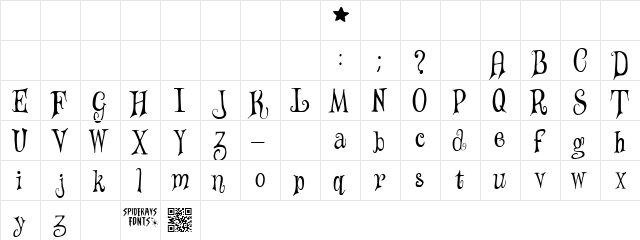
Wizards Magic Regular
Design Context for Wizards Magic Typeface
Wizards Magic is a composed and adaptable typeface that performs quietly and consistently across a wide range of design contexts.